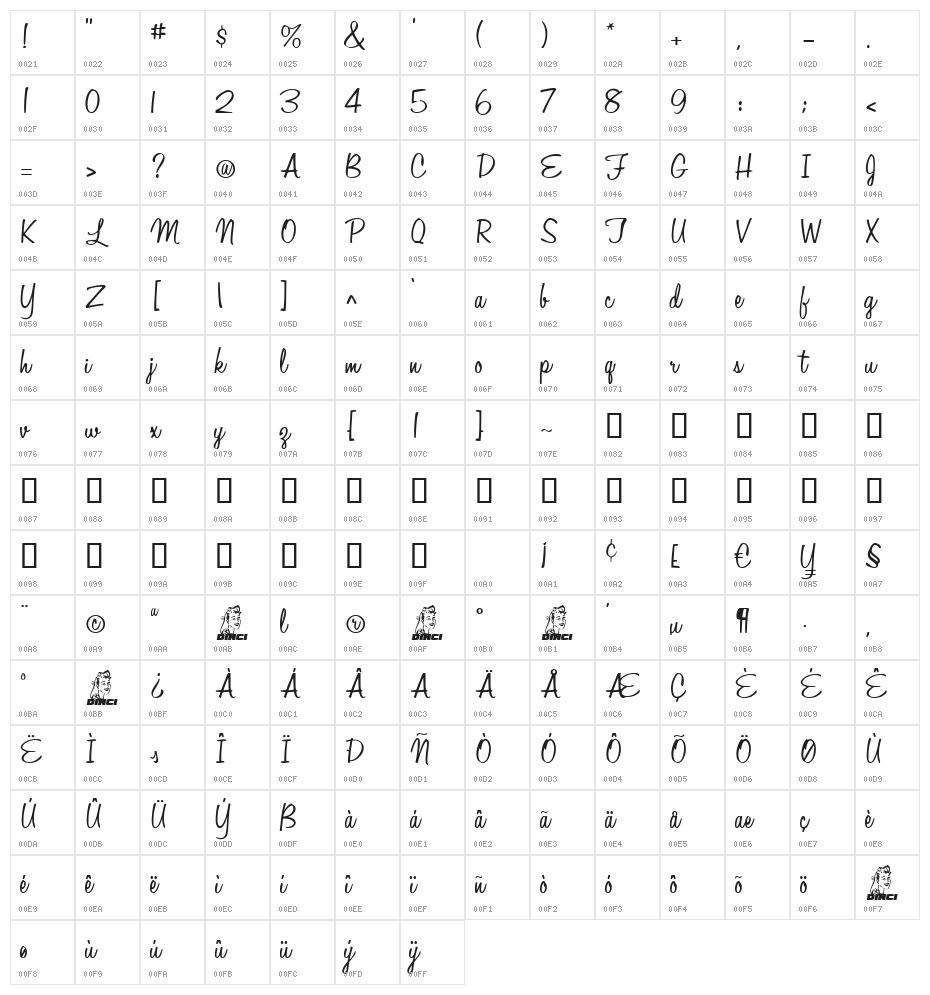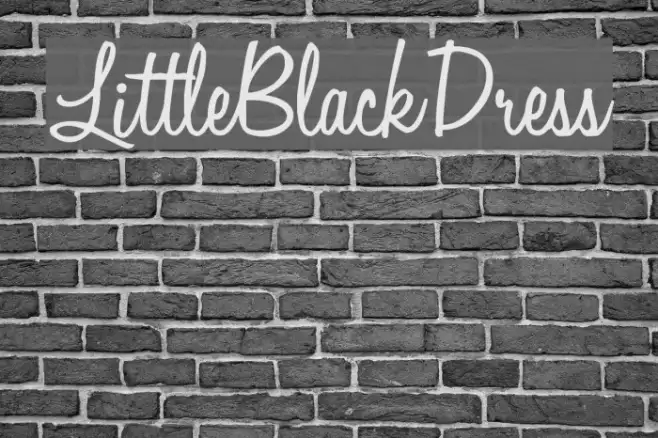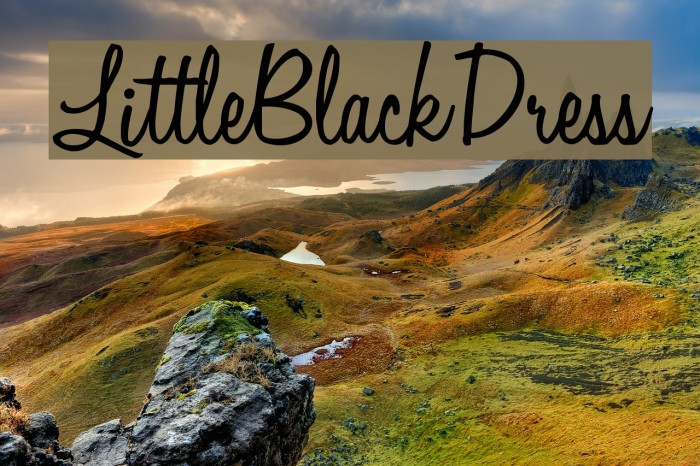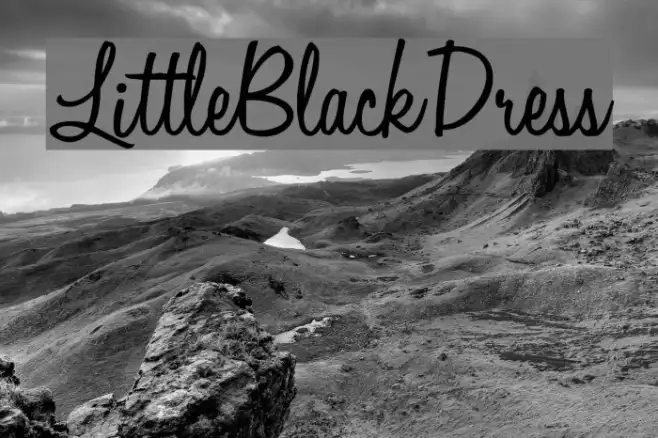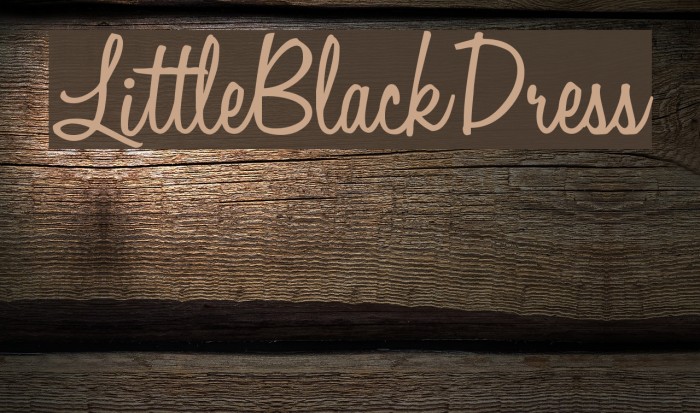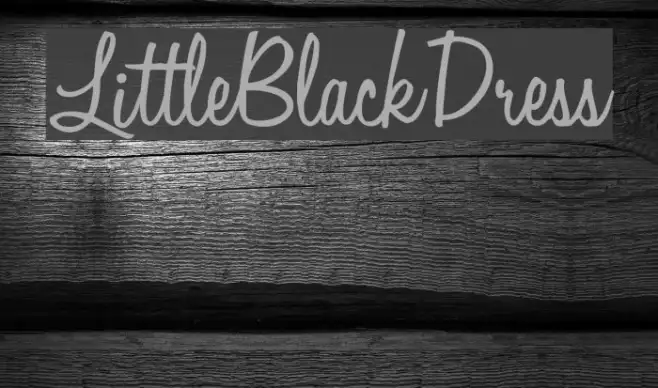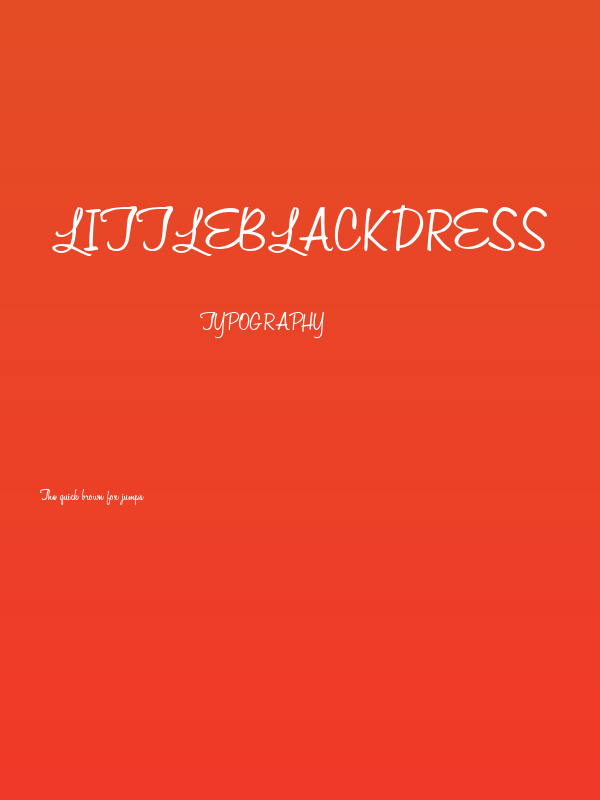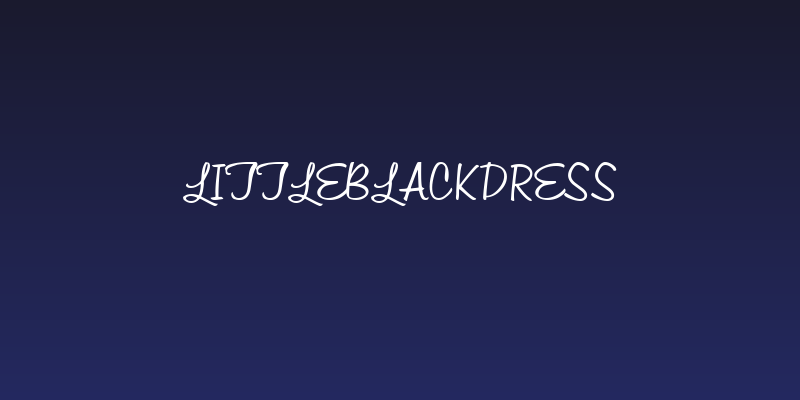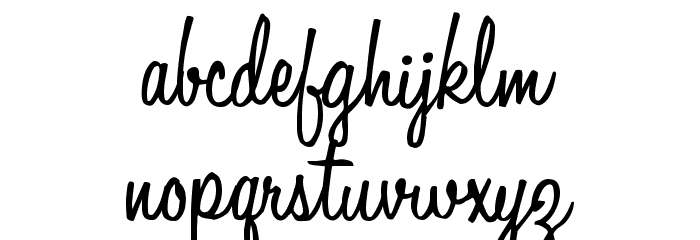
LittleBlackDress Font
LittleBlackDress Description
This font features a lively and dynamic script style, characterized by its fluid and connected letterforms. The uppercase letters exhibit a playful yet elegant flair, with a slight slant that adds to the overall movement of the text. The lowercase letters maintain a consistent flow, enhancing readability while preserving the font's artistic nature. Numbers and special characters are crafted with the same attention to detail, ensuring a cohesive look across all elements. The strokes are moderately thick, providing a balanced contrast that makes the font suitable for both display and informal text settings.
| Use Case | Logos, Invitations, Greeting cards |
| Proposed Projects | Ideal for invitations, greeting cards, branding projects, and creative posters. |